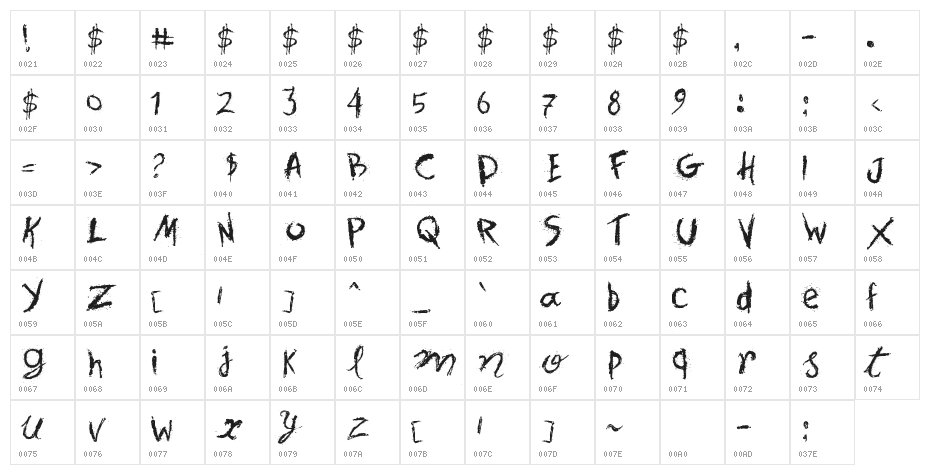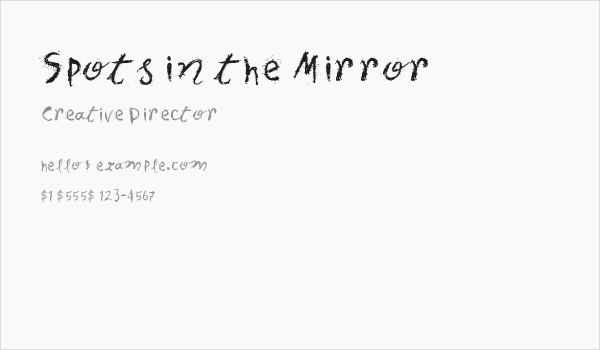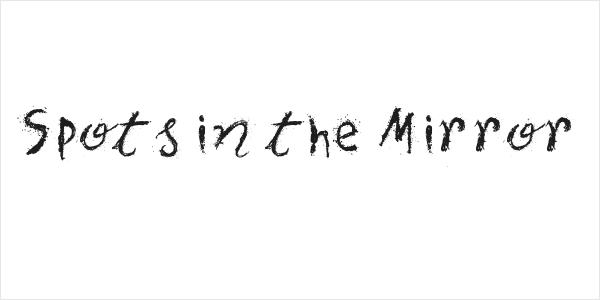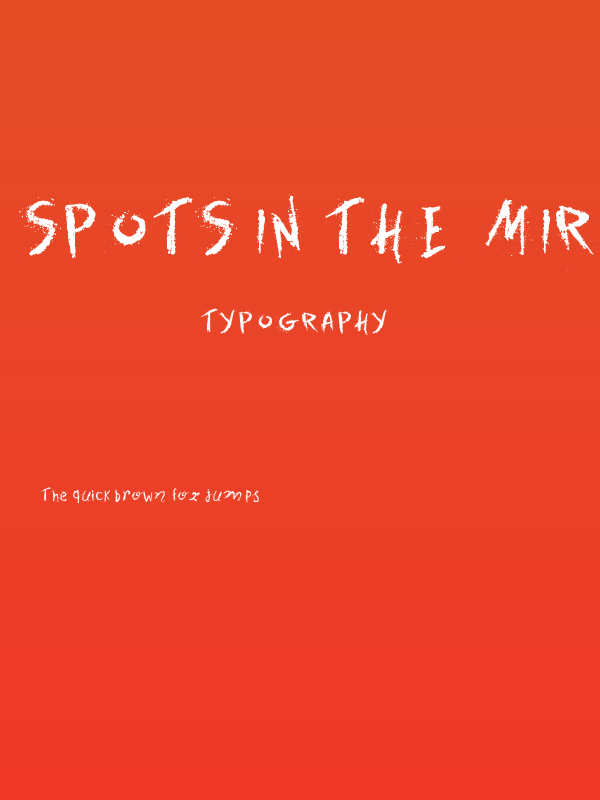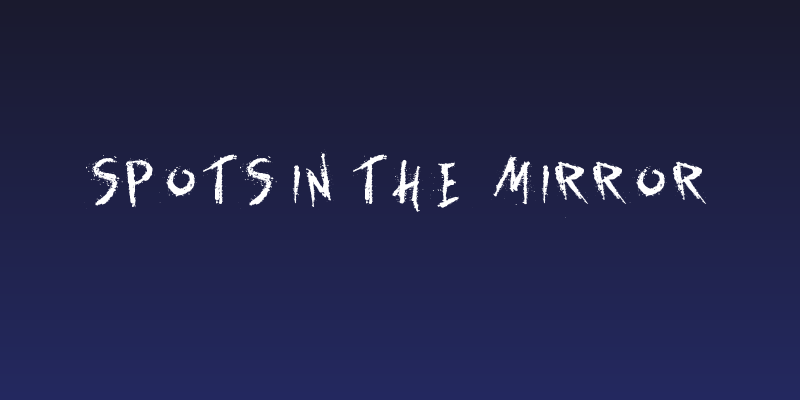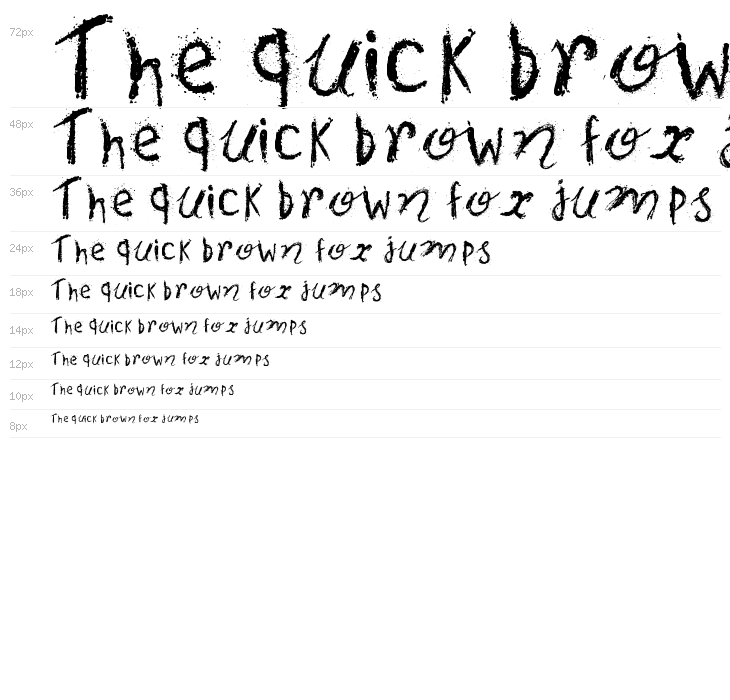
Spots in the Mirror Font
Spots in the Mirror Description
This font features a unique, distressed appearance with a hand-drawn quality. Each character is marked by irregular edges and a textured, speckled effect that gives it a grungy, artistic feel. The letters vary in width and height, adding to the font's dynamic and spontaneous look. The uppercase and lowercase letters maintain a consistent style, with some characters exhibiting exaggerated curves and angles. Numbers and special characters follow the same aesthetic, ensuring a cohesive appearance across all glyphs. This font's distinctive style makes it stand out, perfect for creative and unconventional design projects.
| Use Case | Logos, Posters, Artistic Branding |
| Proposed Projects | Ideal for album covers, posters, artistic branding, and edgy graphic designs. |